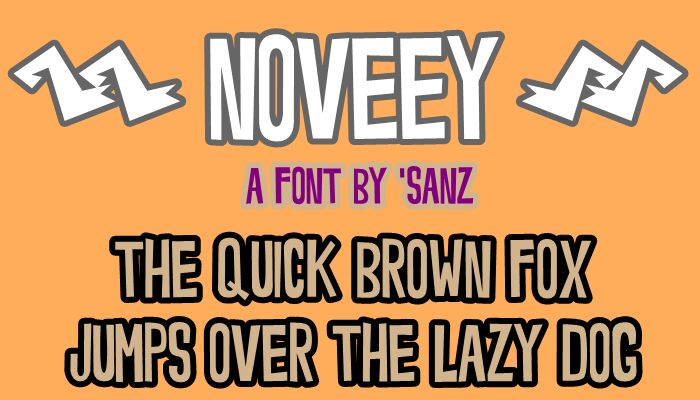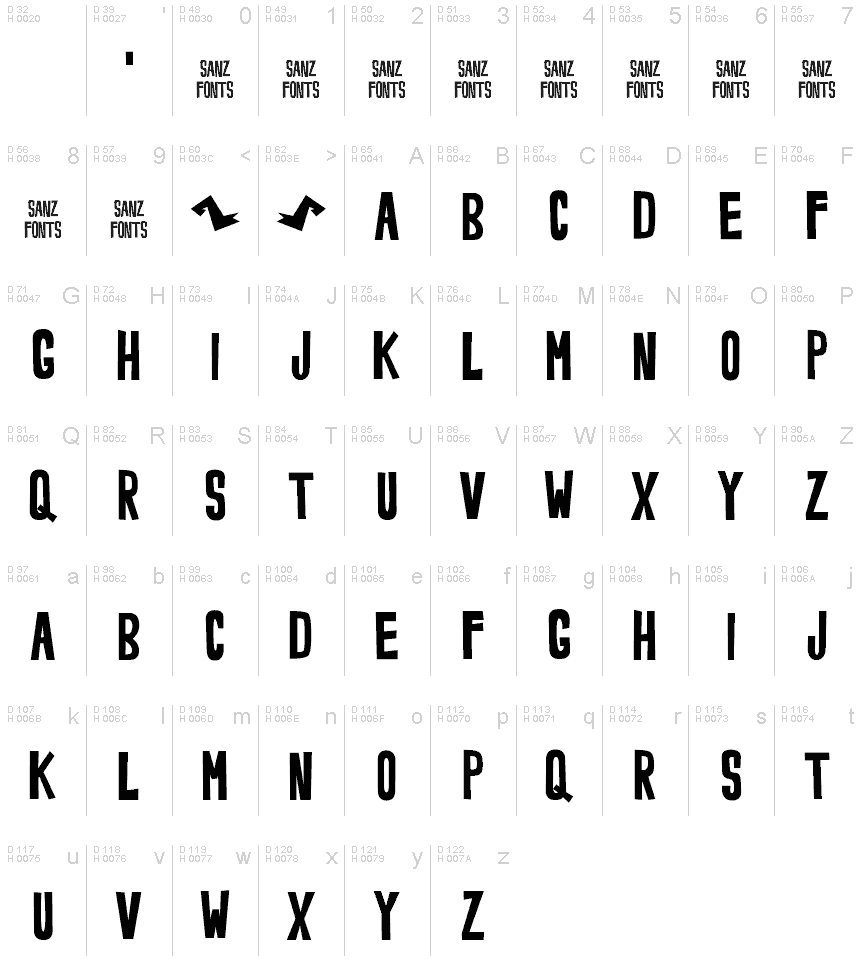
Noveey Bold
Noveey Bold is a captivating display font that oozes bold, comic-inspired charm. Designed by the talented Sanz d'Cloudz, this condensed font exudes a distinct personality, making it a versatile choice for a range of design applications.
The sharp, angular letterforms and striking contrasts immediately grab the viewer's attention, while the condensed width adds a sense of energy and dynamism. Noveey Bold's playful, comic-book aesthetic lends itself beautifully to attention-grabbing headlines, impactful branding, and eye-catching typographic compositions.
This font's bold presence and unique style make it an excellent option for designers seeking to inject a dose of personality and character into their creative projects. Noveey Bold's striking visual impact and versatility ensure it will shine in both digital and print mediums.
The sharp, angular letterforms and striking contrasts immediately grab the viewer's attention, while the condensed width adds a sense of energy and dynamism. Noveey Bold's playful, comic-book aesthetic lends itself beautifully to attention-grabbing headlines, impactful branding, and eye-catching typographic compositions.
This font's bold presence and unique style make it an excellent option for designers seeking to inject a dose of personality and character into their creative projects. Noveey Bold's striking visual impact and versatility ensure it will shine in both digital and print mediums.